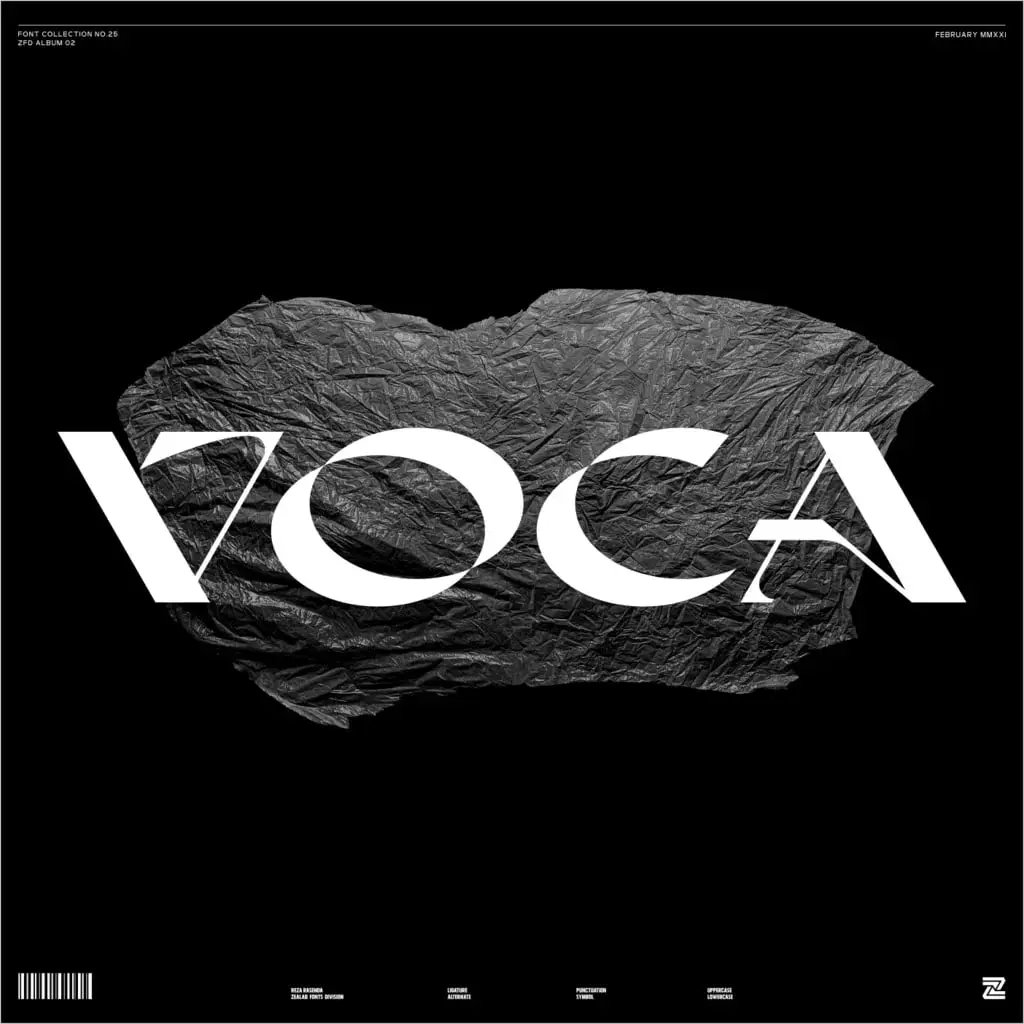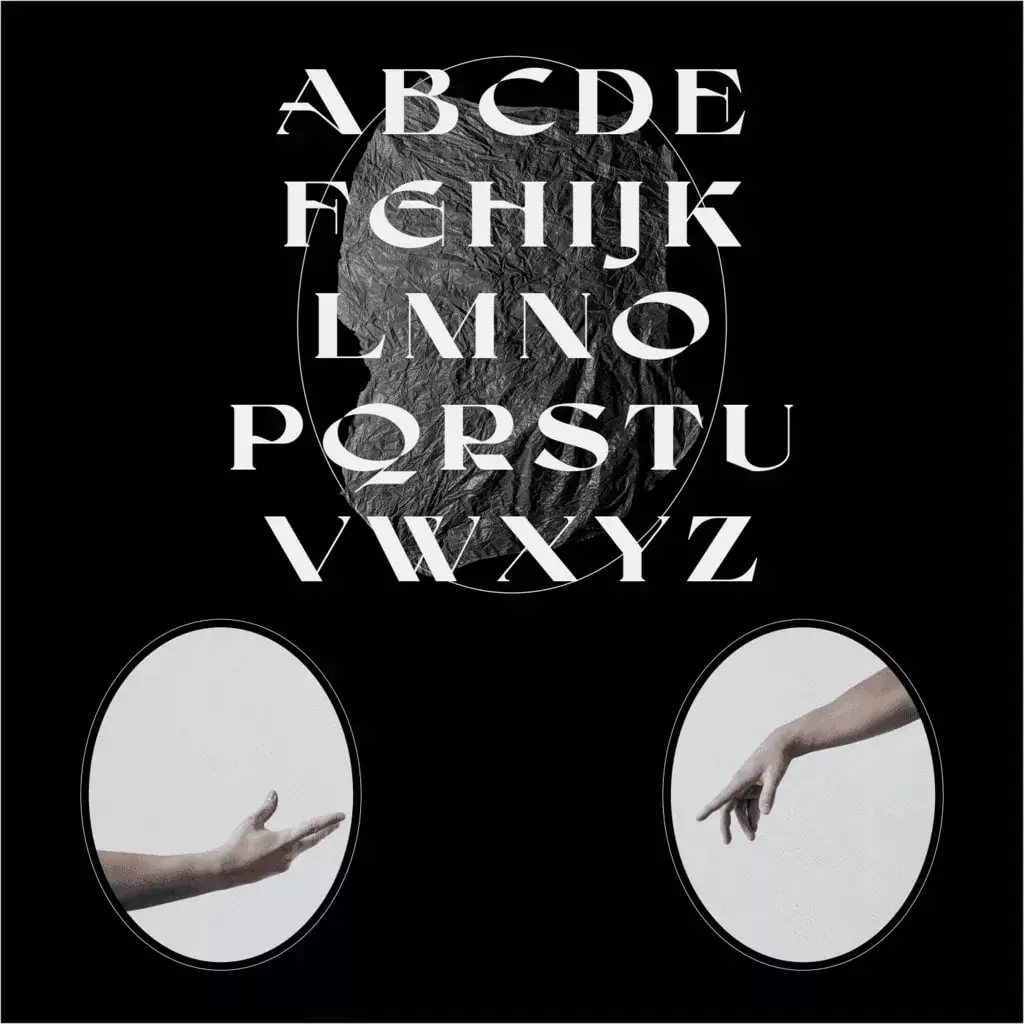
Voca Display Font
The Voca Display Font is a modern and stylish typeface designed to make a statement. With its unique letterforms and bold characteristics, it is perfect for a variety of design projects.
• Distinctive display style
This font is ideal for branding, logos, web design, and print materials. Its eye-catching design ensures that your text stands out in any application.